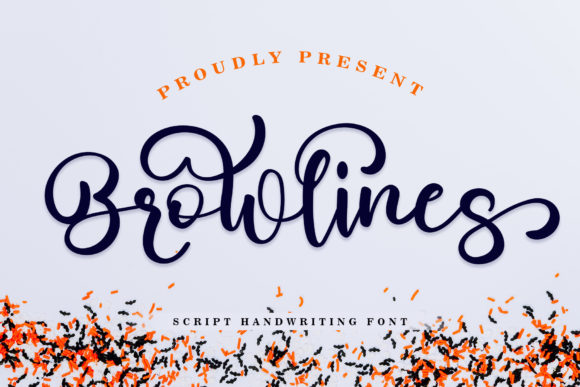
The Quest for the Perfect Font: Discovering Browlines
I still remember the frustration of scrolling through font after font, searching for the perfect one to complete my design project. My client wanted a romantic and whimsical feel, but everything I found seemed either too bland or too over-the-top. That’s when I stumbled upon Browlines, a sweet, romantic, and beautiful script font that stole my heart. ✨
A First Impression: What I Love About Browlines
So, what makes Browlines so special? Here are a few things that I absolutely love:
• ✨ Beautiful curves in every letter: Browlines boasts elegant, flowing curves that give it a distinctly romantic feel.
• ✅ PUA coded for easy access: The font is PUA (Private Use Area) coded, which means you can easily access all the glyphs and sweeps without any hassle.
• 💕 Perfect for creative projects: Whether you’re working on a wedding invitation, a branding project, or a personal craft, Browlines adds a touch of sweetness and sophistication.
While Browlines has won my heart, it’s not without its quirks. Here are a few things to keep in mind:
• ⚠️ Limited use in formal contexts: Due to its script nature, Browlines might not be the best fit for very formal or corporate projects.
• 🤔 Can be overwhelming in large blocks of text: While it’s stunning in headings and short paragraphs, using Browlines for large blocks of text can be overwhelming.
The Story Behind Browlines: Designer Inspiration
While the origins of Browlines are shrouded in mystery, it’s easy to imagine a designer with a passion for calligraphy and handwriting crafting this font. Perhaps they wanted to create a typeface that captures the essence of handwritten love letters or vintage wedding invitations. The result is a font that’s both timeless and trendy.
What is PUA coding? PUA (Private Use Area) coding allows for easy access to glyphs and special characters in a font, making it simpler to use all the features Browlines has to offer.
Is Browlines suitable for body text? While Browlines is stunning in headings and short paragraphs, it’s not ideal for large blocks of body text due to its script nature.